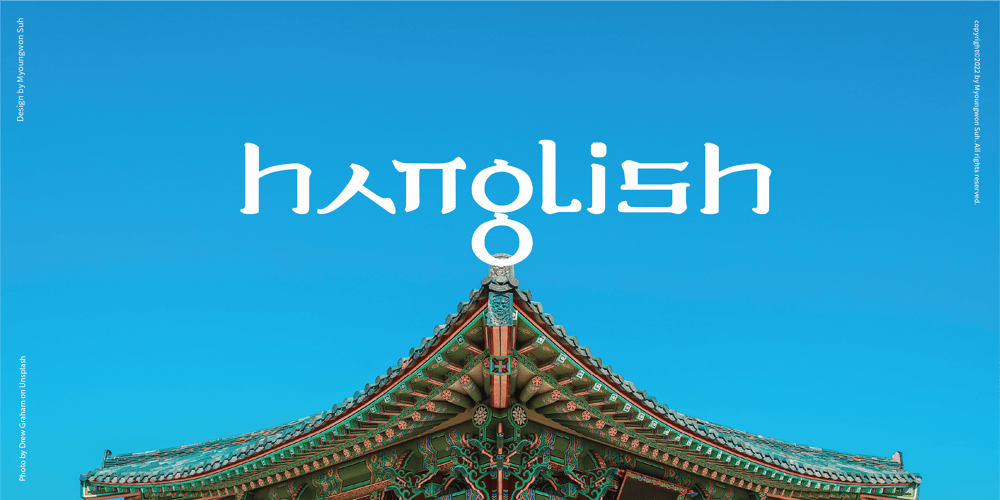
Hanglish Font Family was designed by Myoungwon Suh and published by Designsuh. Hanglish contains 1 styles and family package options. Hanglish transformed Korean character elements into an English font. Korean characters are the only characters in the world whose creator is known. It was created and announced on October 29, 1446 by King Sejong the Great so that the people could easily write and read the letters. It was created by arranging oriental calligraphic fonts.